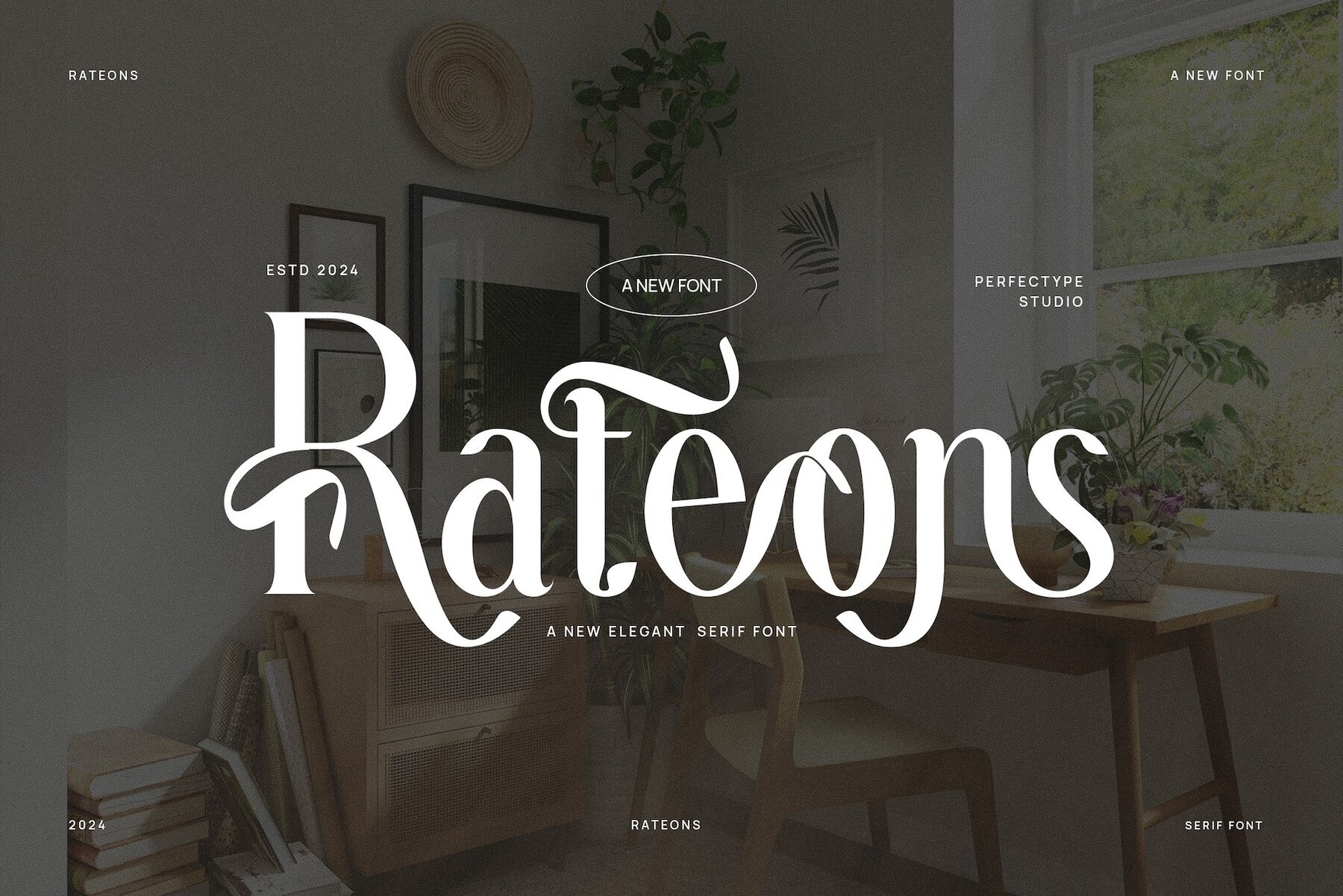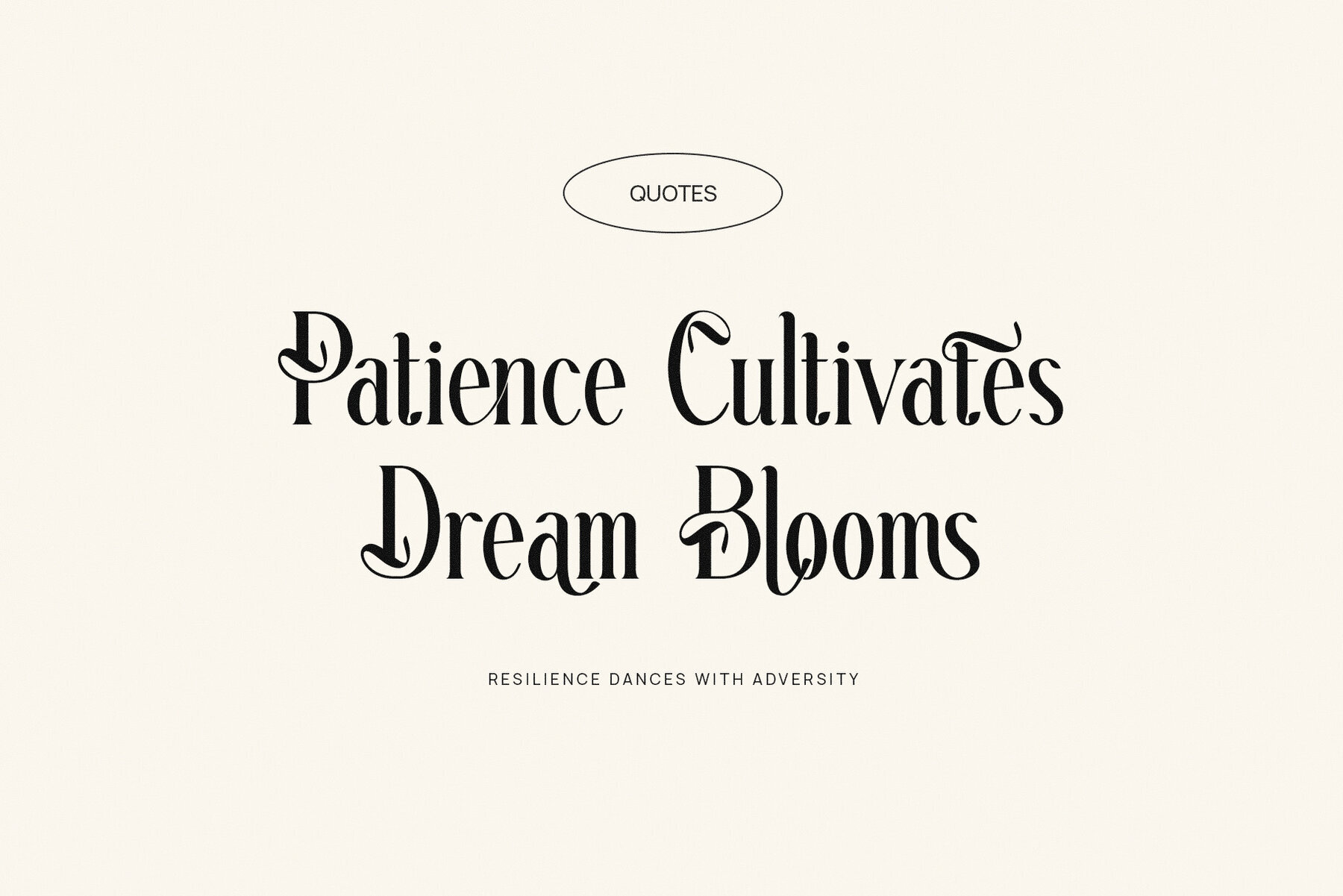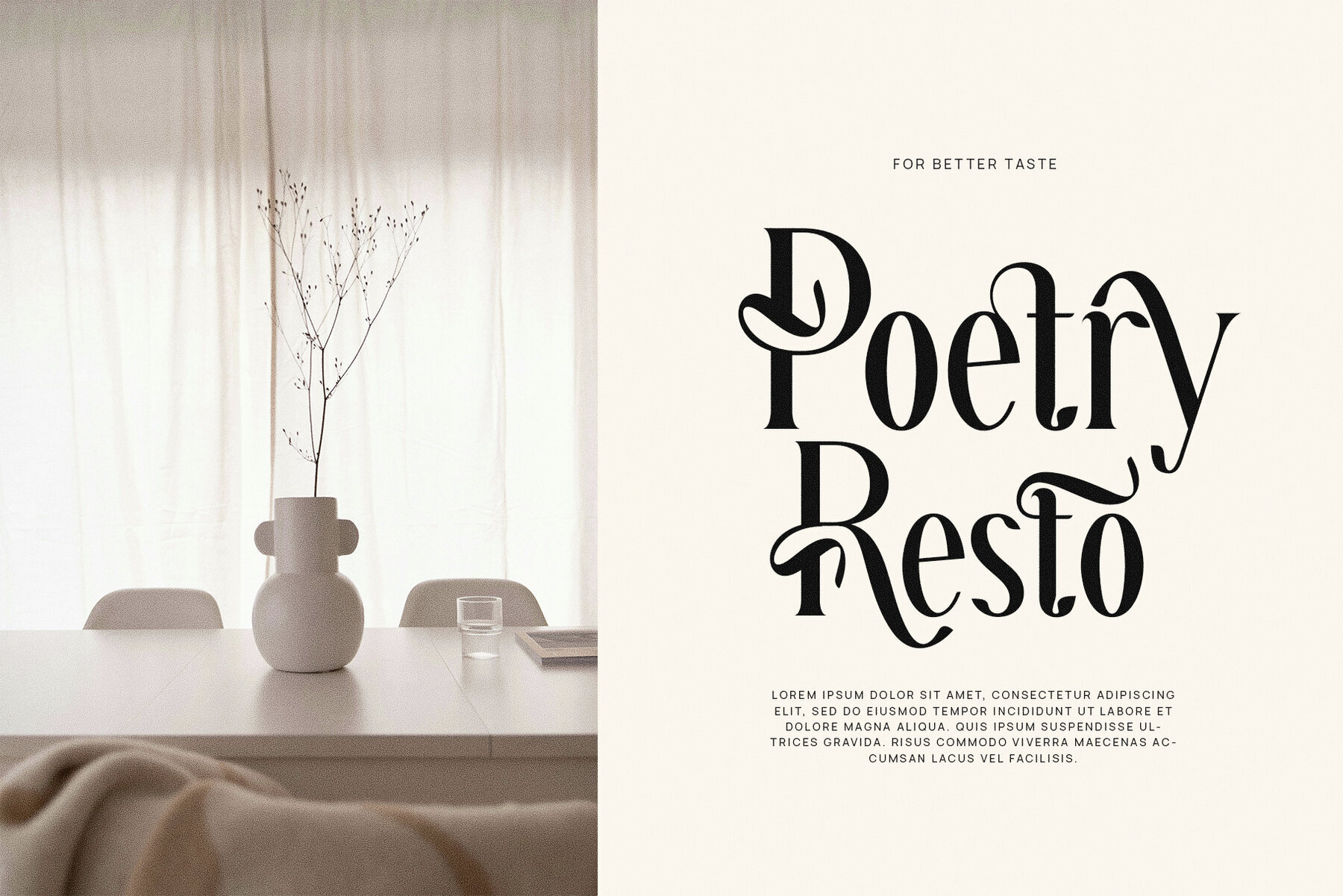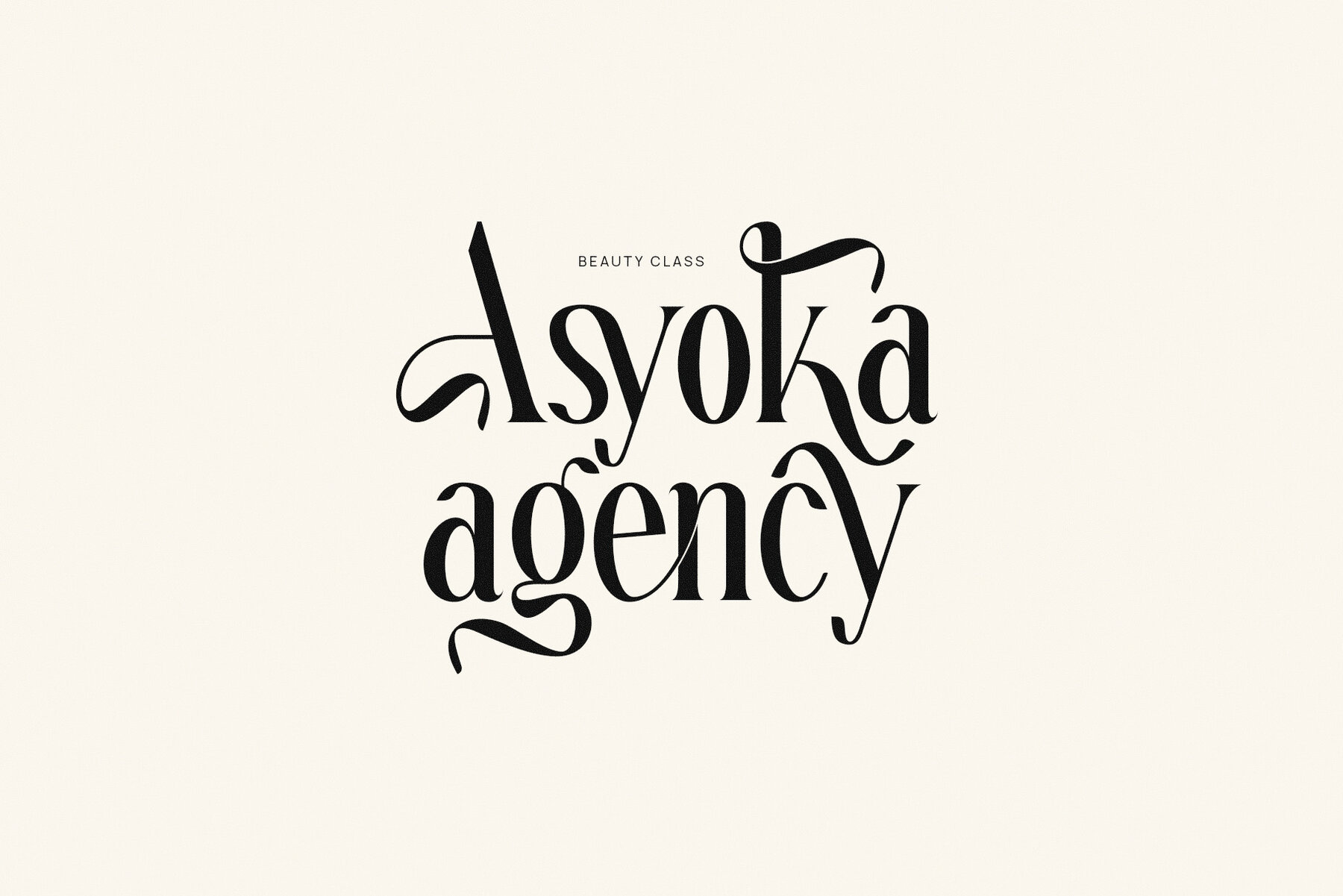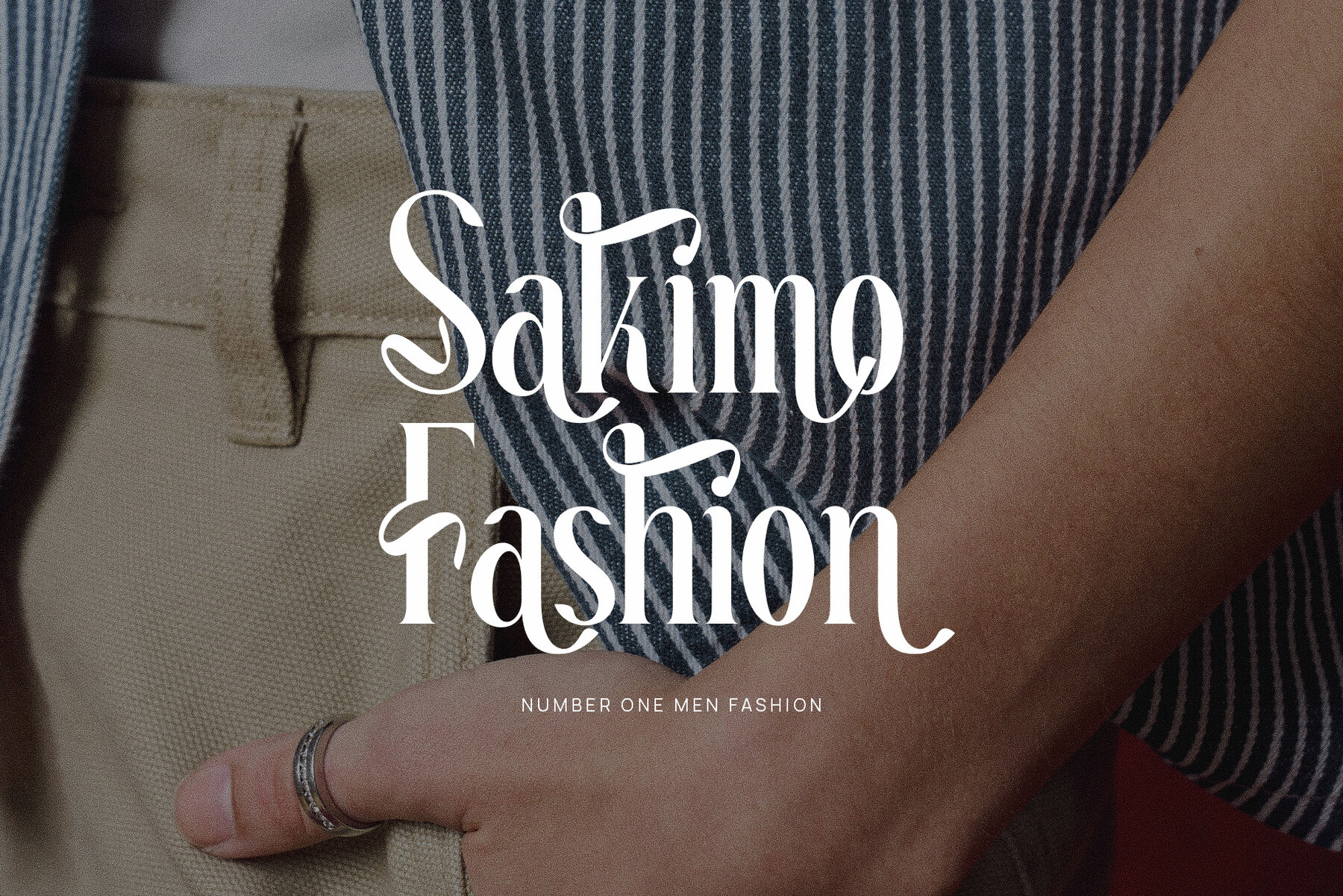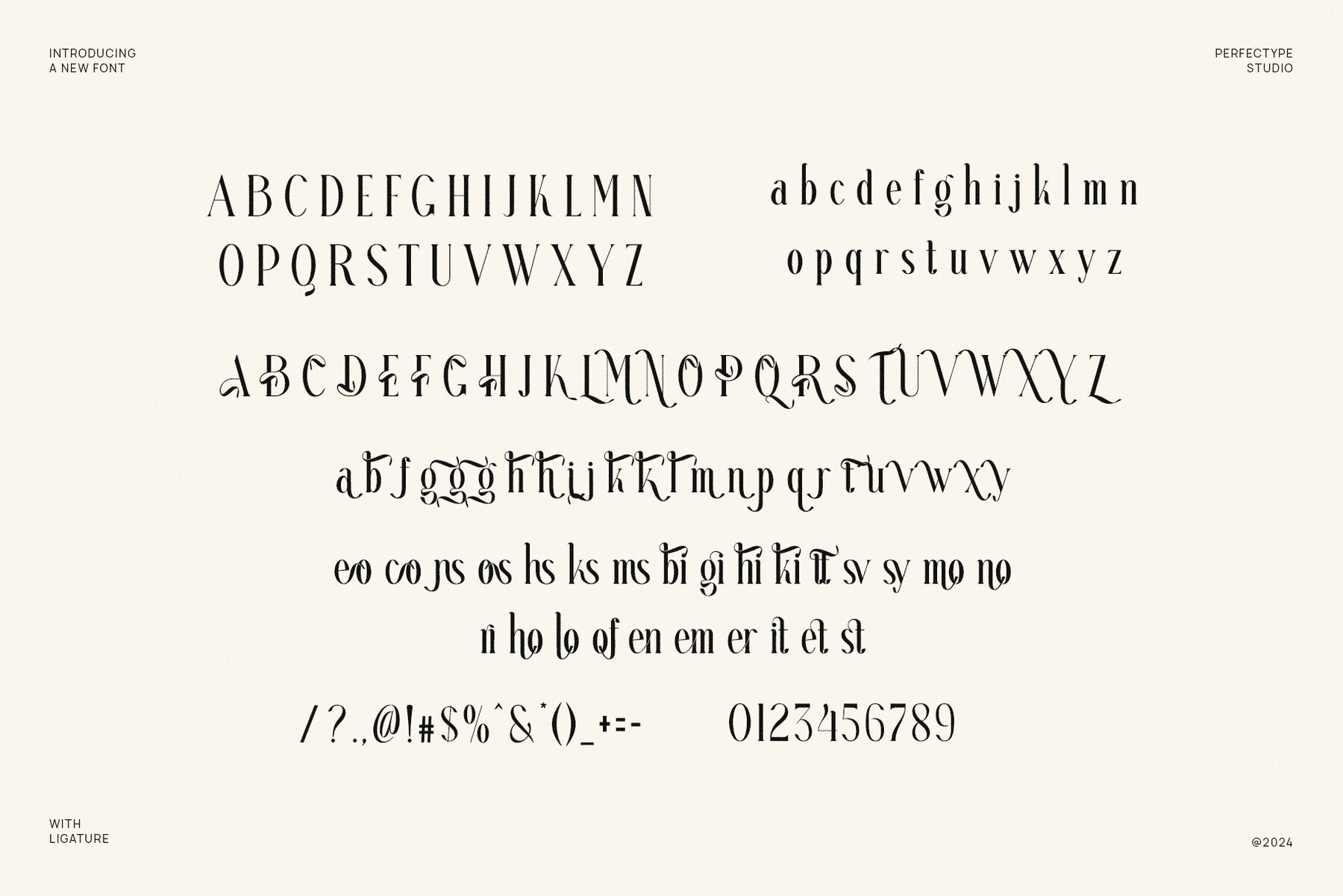
Reteons Font
Rateons
Reteons Elegant Serif Font is a sophisticated typeface that seamlessly blends modern design with timeless elegance. Featuring beautifully crafted serifs and distinctive letterforms, Reteons brings a luxurious touch to any project. Its unique shapes are enhanced by elegant ligatures and alternate characters, providing designers the flexibility to create seamless and personalized typography that effortlessly complements any design.
This versatile font is an excellent choice for high-end branding and visual identity projects. It is perfect for logos, upscale product packaging, and luxury websites, performing beautifully in both large headings and smaller body text. Whether crafting a chic boutique logo, an engaging magazine layout, or a stylish advertisement, Reteons offers a refined and professional aesthetic.
Ideal for industries demanding sophistication—including fashion, food, lifestyle, and luxury—Reteons maintains a modern yet timeless appeal. It is well-suited for both print and digital formats, providing the versatility needed for a wide range of creative projects. With its elegant structure and customizable features, Reteons Elegant Serif Font is an essential tool for designers looking to craft memorable, high-end branding that leaves a lasting impression.